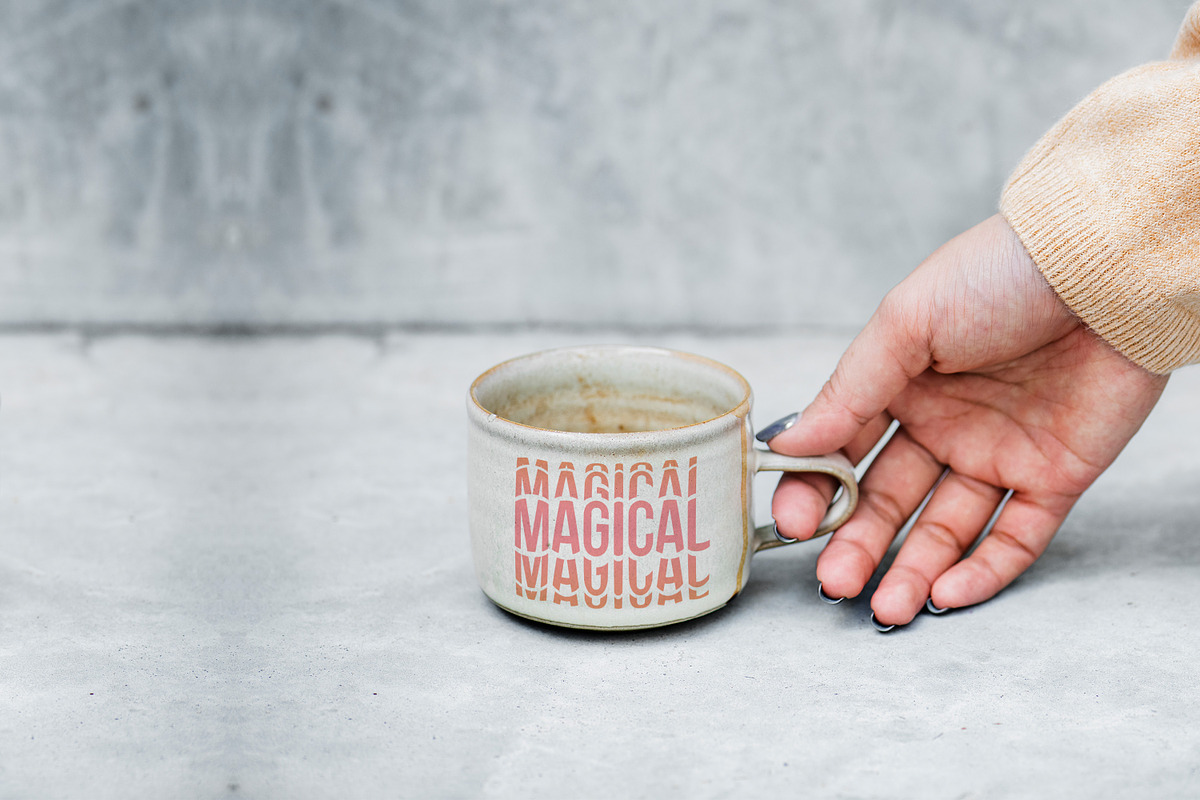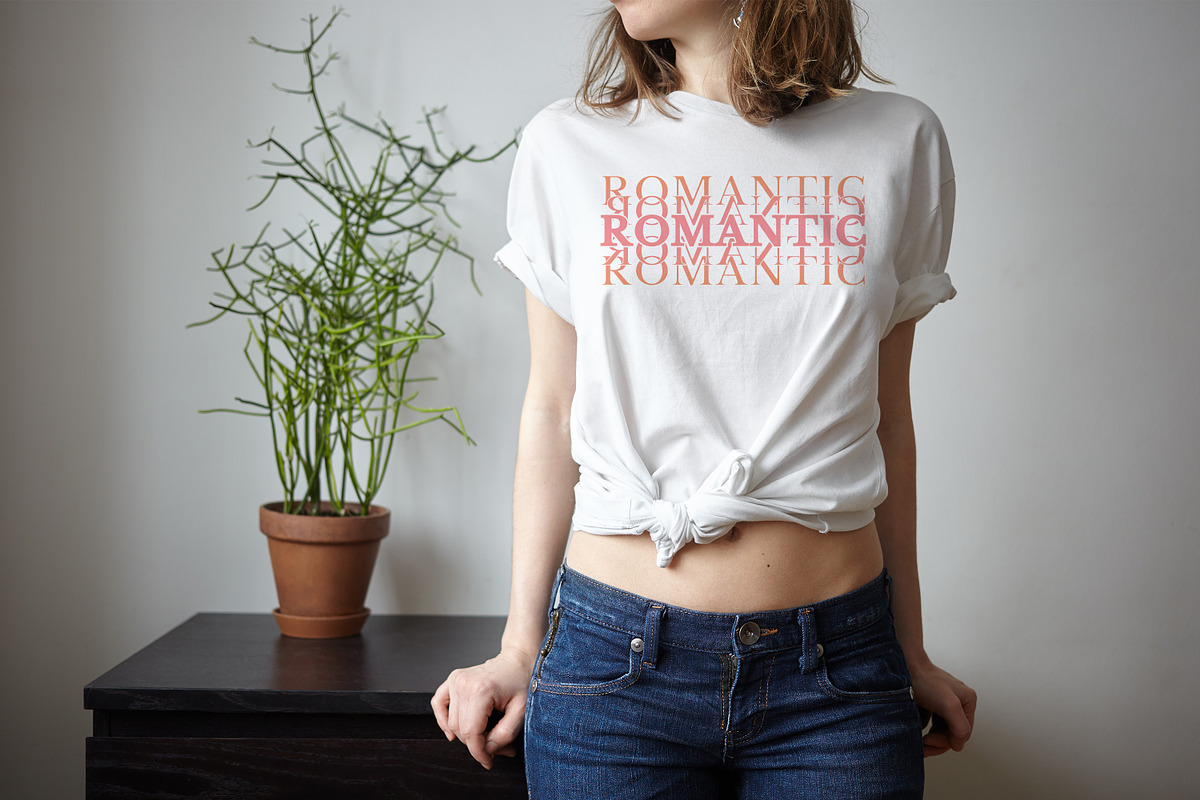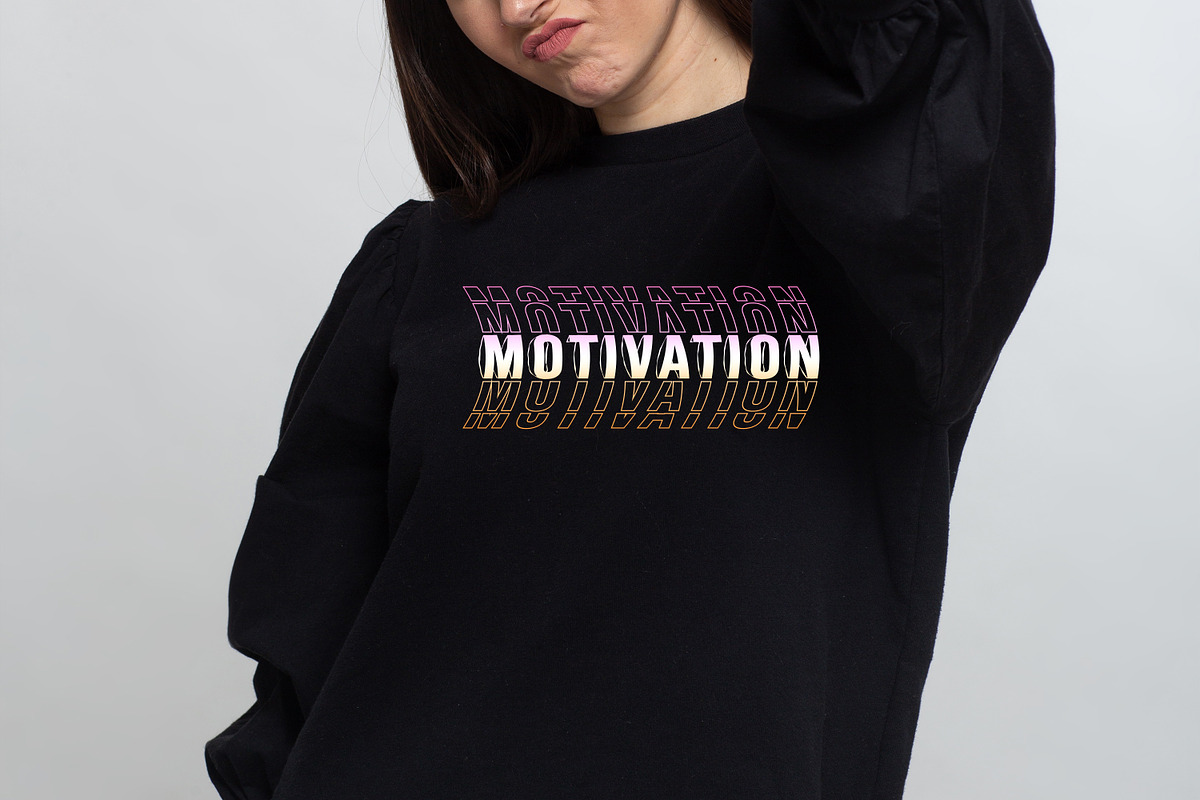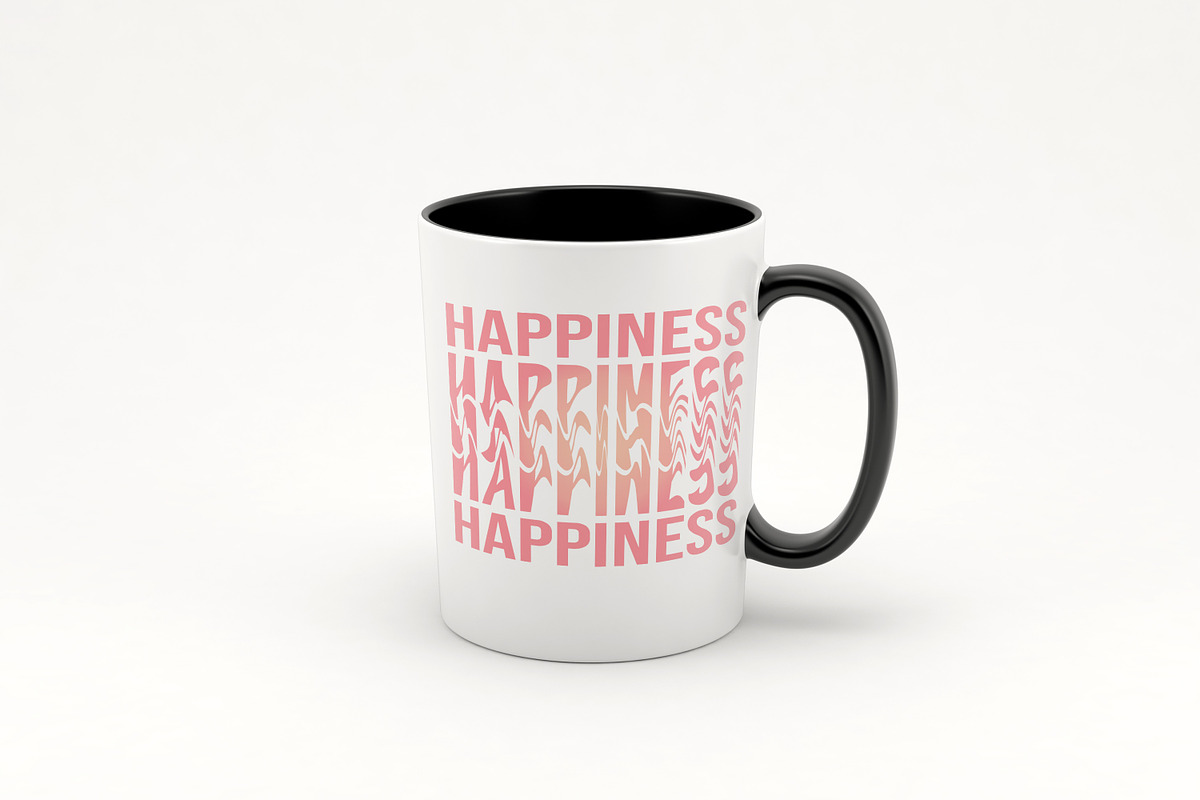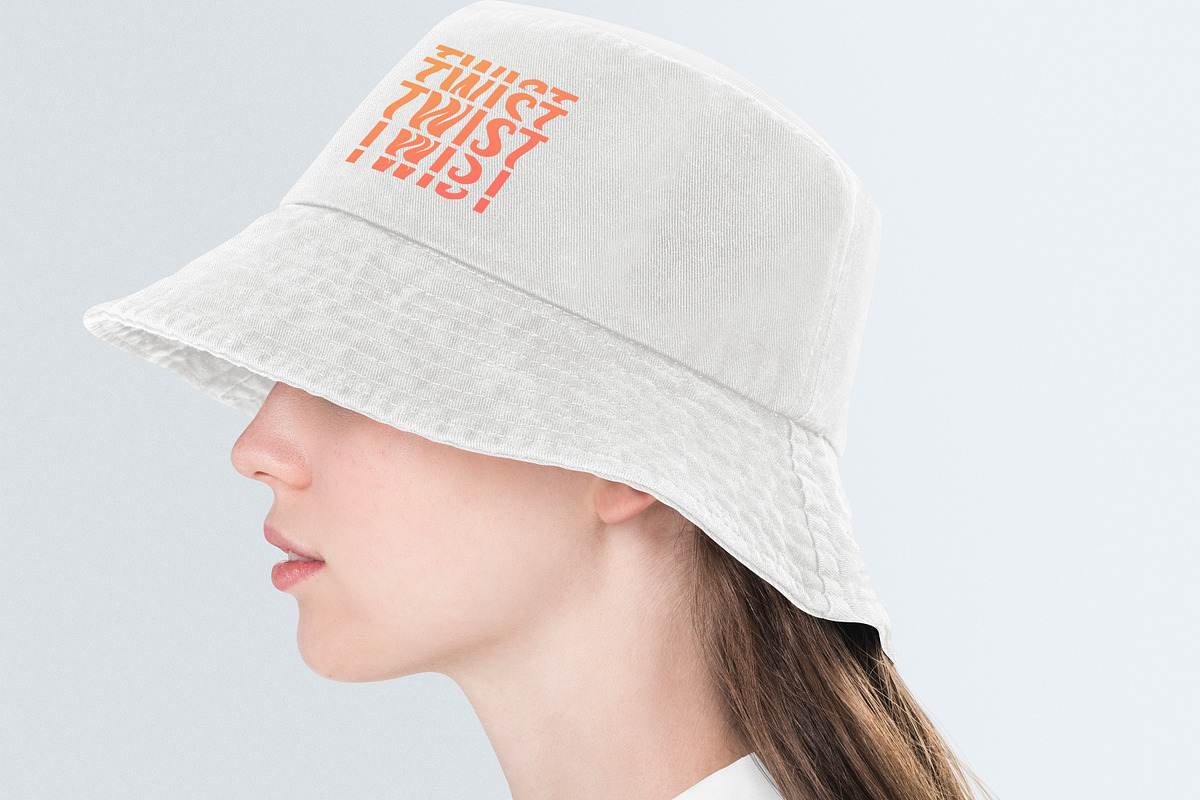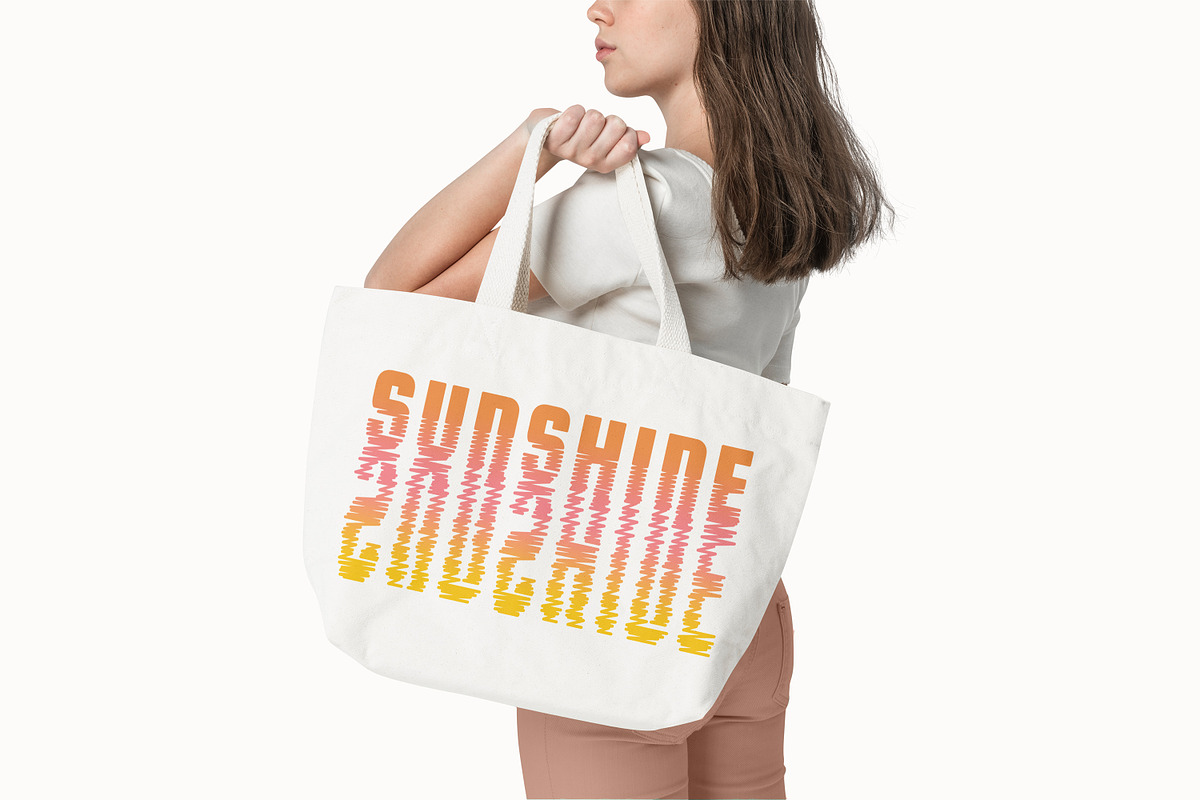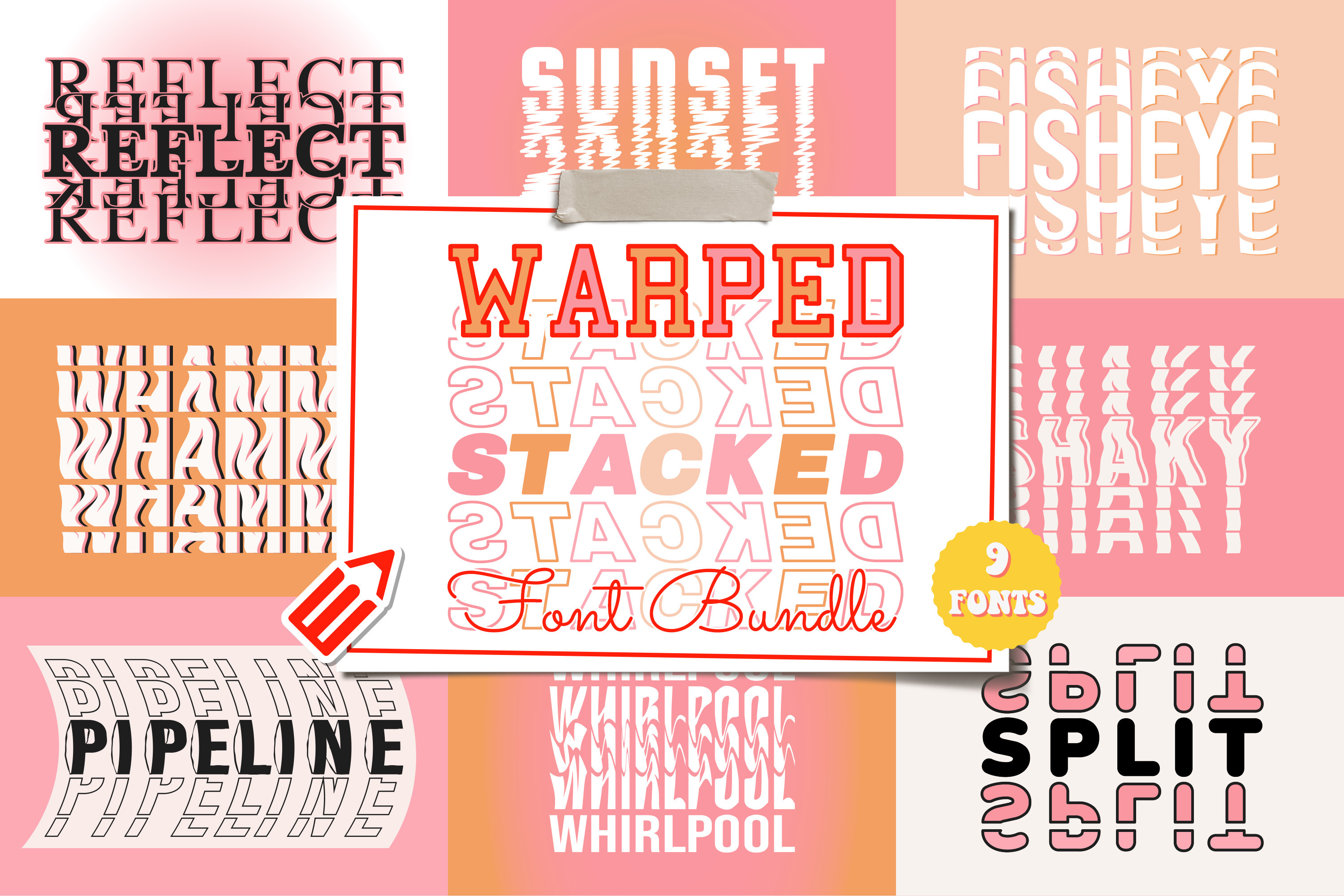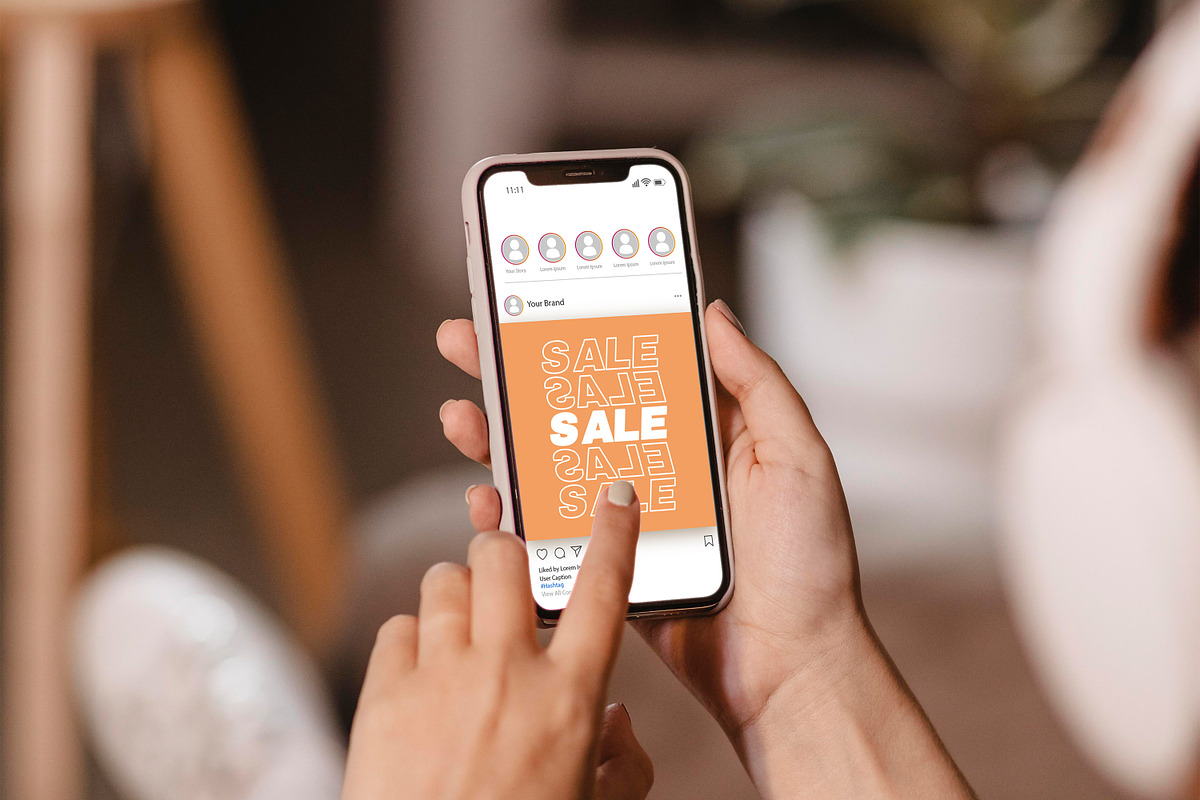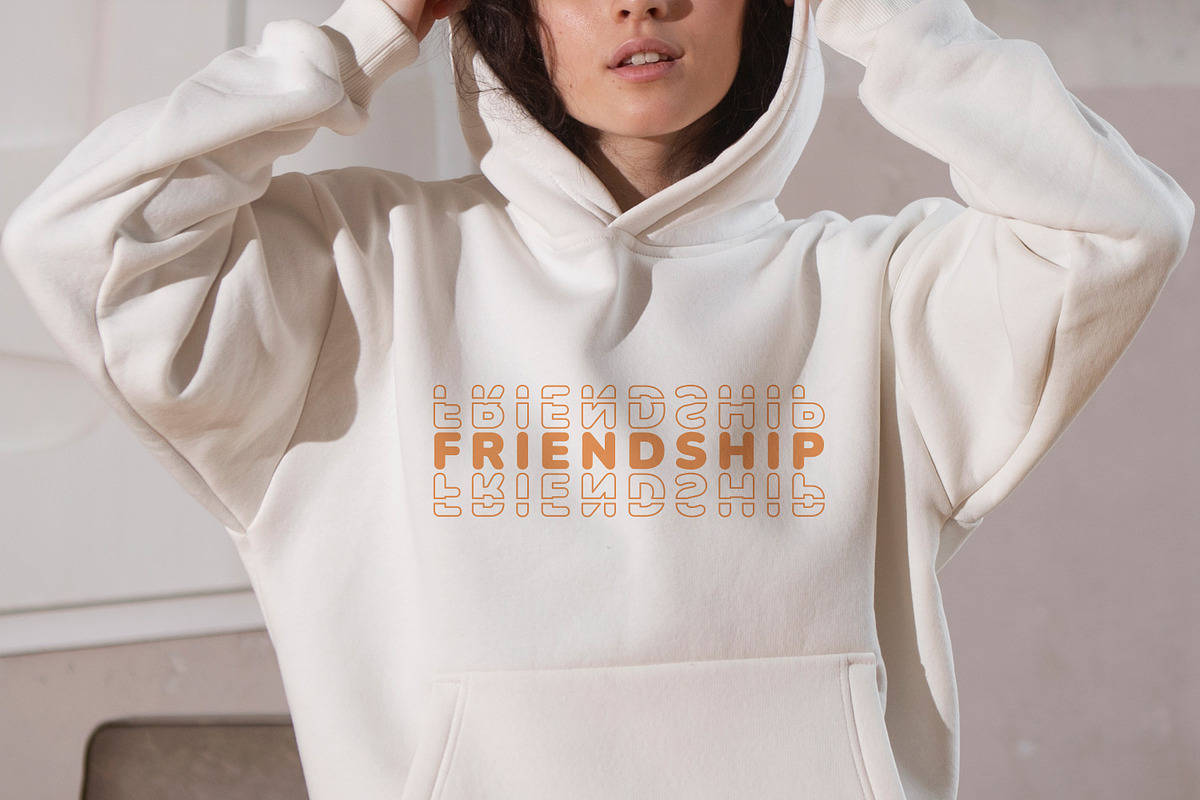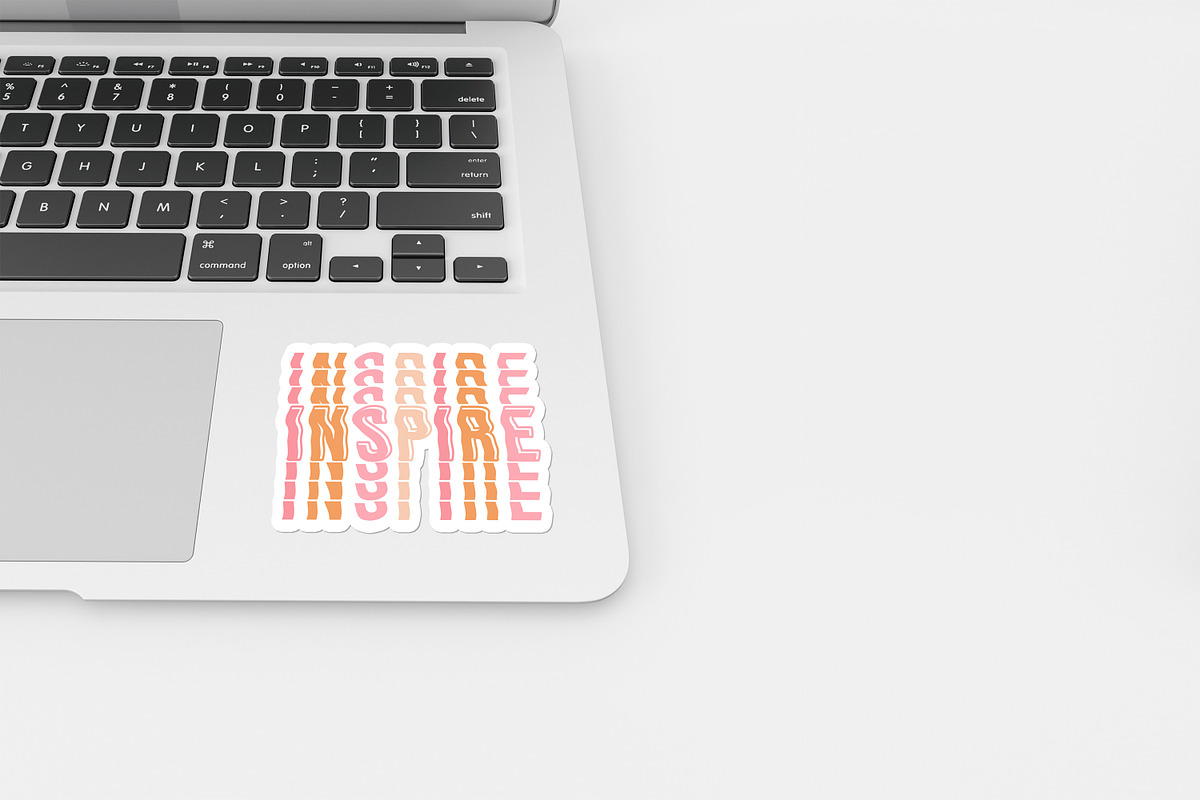
Warped Stacked Font Bundle
Warped Stacked Font Bundle is here with an incredible selection of 9 stacked fonts. A mind-bending collection that defies convention and adds a mesmerizing twist to your designs! This extraordinary bundle features Warped Fonts designed to push the boundaries of typographic creativity. With their unique and distorted letterforms, these fonts bring a surreal and artistic touch to your projects. Let your designs transcend the realm of normalcy as you experiment with these captivating and unconventional letterforms. Whether you're creating album covers, experimental artwork, or daring branding, our Warped Stacked Font Bundle will make your designs stand out with their visually striking and thought-provoking style. Embrace the art of distortion and let your imagination run wild with our Warped Stacked Font Bundle - where typography takes on a whole new dimension!
The warped stacked font bundle is perfectly suited for physical products, such as t-shirts, hoodies and sweatshirts, mugs, phone cases, posters and wall art, tote bags, stickers, hats and caps, pillows and cushions, notebooks and journals, leggings, face masks, canvas prints, throw blankets, socks, aprons, baby onesies, laptop sleeves, shower curtains, beach towels, coasters, pet accessories (such as pet beds and bandanas), wall clocks, mousepads, water bottles, puzzles, keychains, tote bags, magnets, and travel mugs. And also works with digital products, such as social media graphics, website headers, logos and branding, digital advertisements, ebook covers, presentation slides, digital posters, infographics, online advertisements, digital invitations, and so much more!
Included in this pack: Split Fisheye Pipeline Reflect Reverse Shaky Sunset Whammy Whirlpool